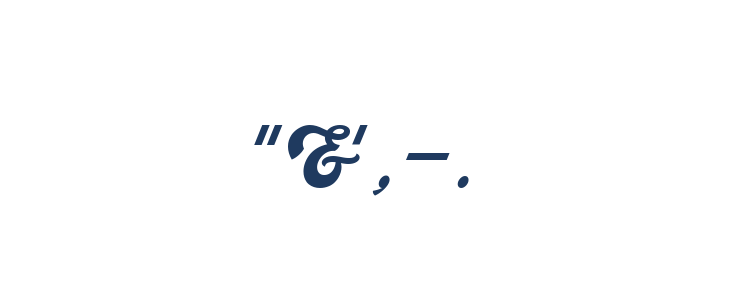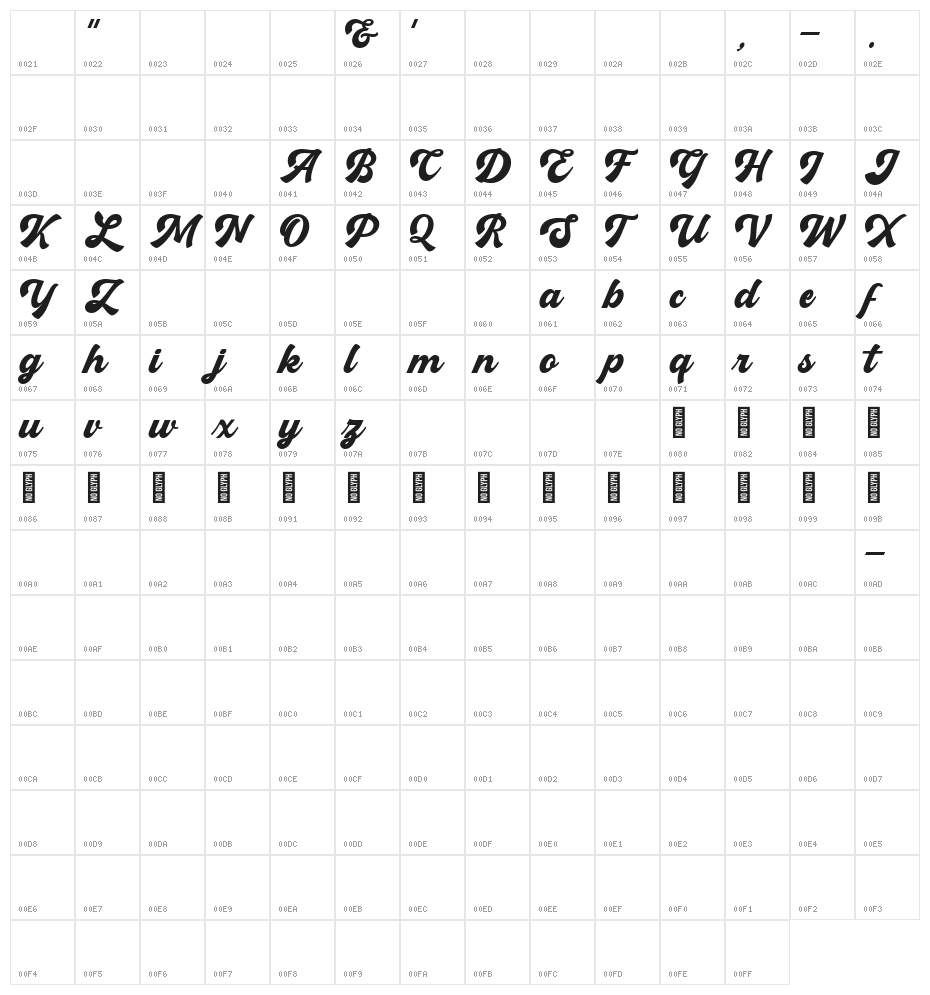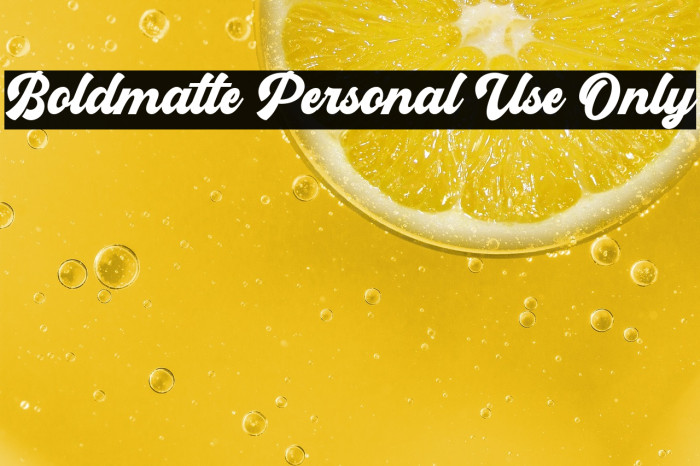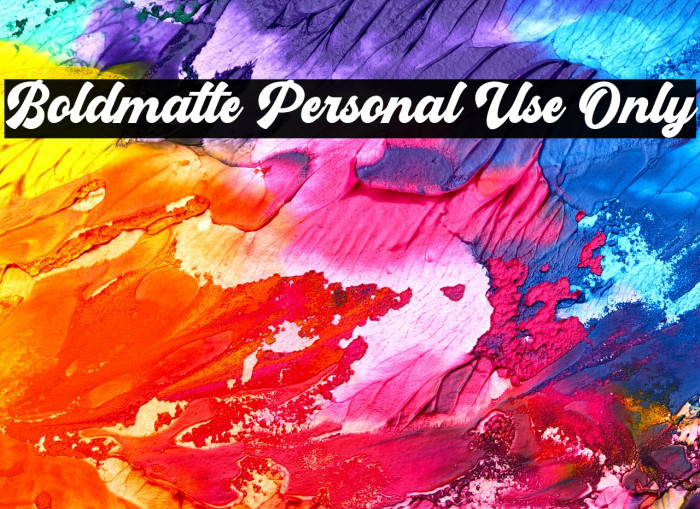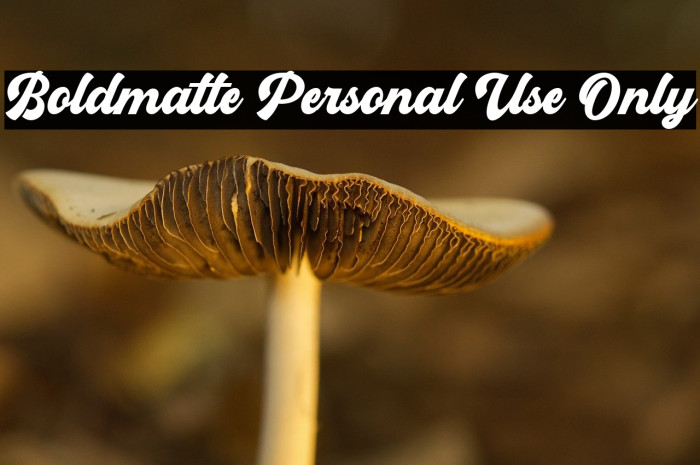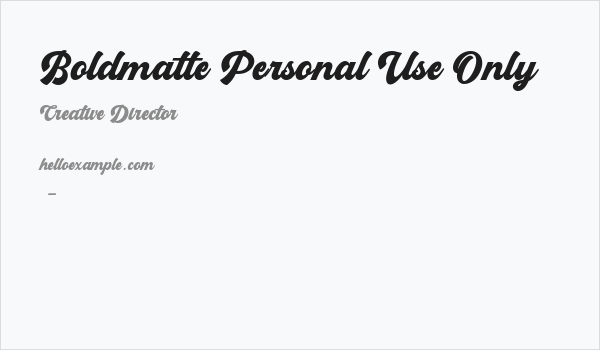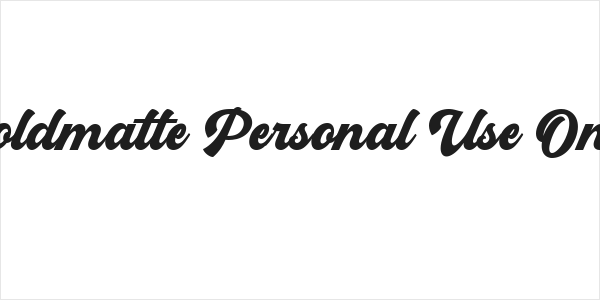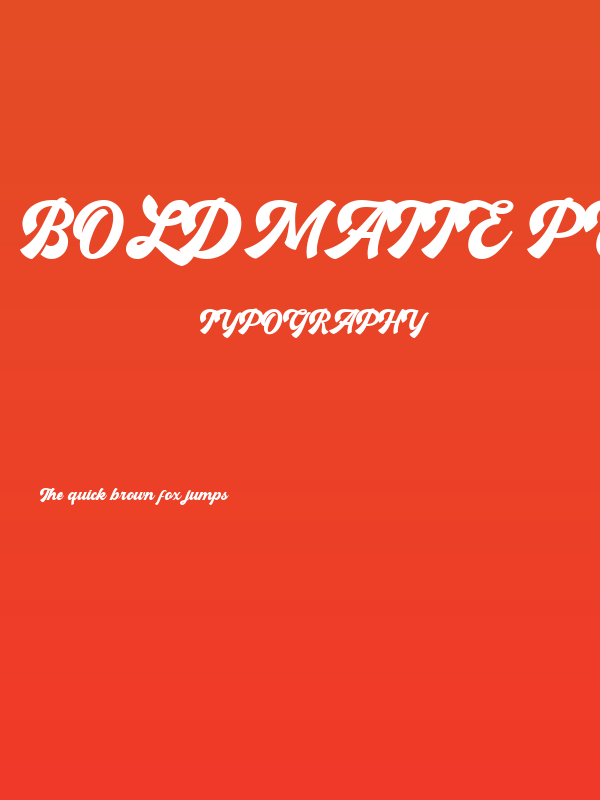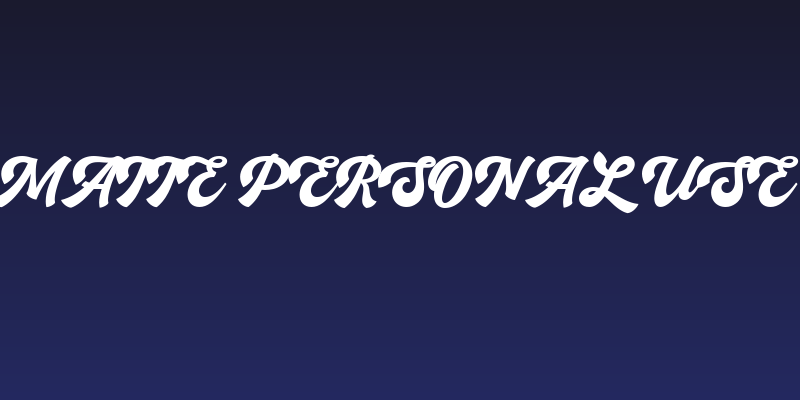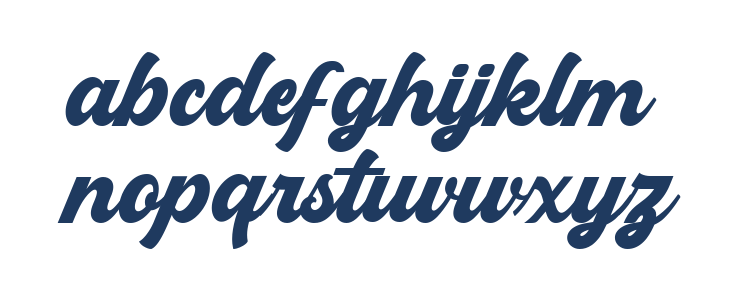
Boldmatte Personal Use Only Font
Boldmatte Personal Use Only Description
This font exhibits a bold and dynamic script style, characterized by its flowing, cursive letterforms that convey a sense of elegance and movement. The uppercase letters are particularly striking, with sweeping curves and a consistent stroke width that adds to the font's bold appearance. The lowercase letters maintain the same fluidity, ensuring readability while adding a touch of sophistication. The numerals and special characters are designed to complement the overall style, making them suitable for various design applications. This font's boldness and script nature make it ideal for projects that require a touch of flair and personality.